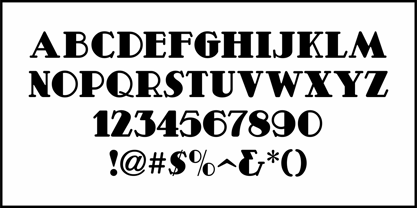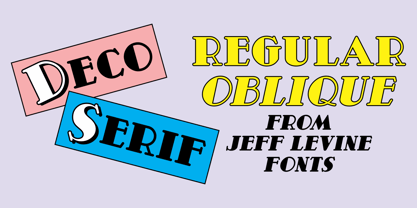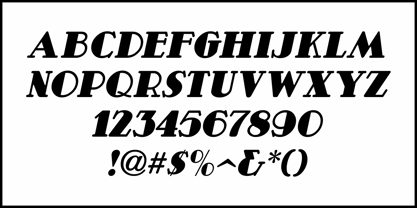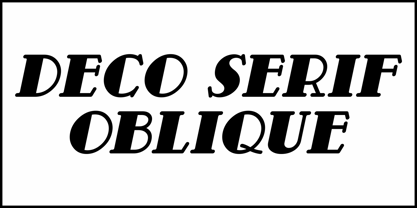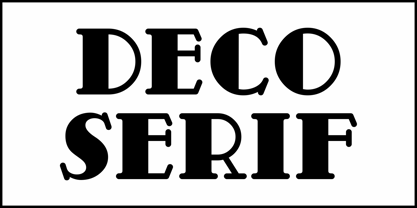
Deco Serif JNL
by Jeff Levine
The Deco Serif JNL Font Family was designed by Jeff Levine and published by Jeff Levine. Deco Serif JNL contains 2 styles and family package options. More about this family
Deco Serif JNL (available in both regular and oblique versions) is a hand lettered thick and thin Art Deco type style with rounded serifs/ This design was found within the pages of the 1942 book "Simplified Show Card Writing"by Carl Rousseau Havighorst. Classic in its thick and thin motif, the rounded serifs offer a bit of a casual approach to the lettering styles of the Art Deco era.